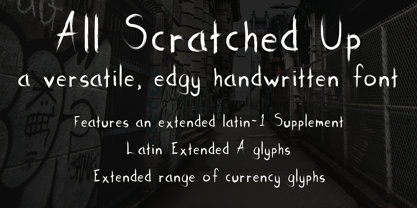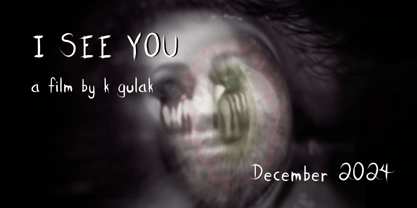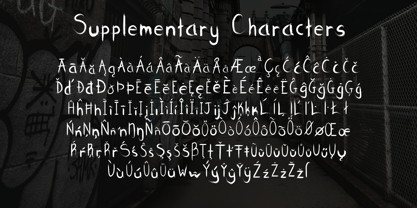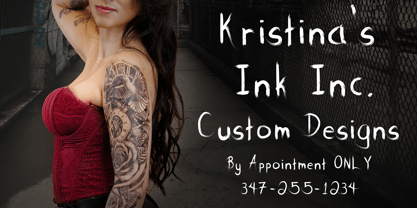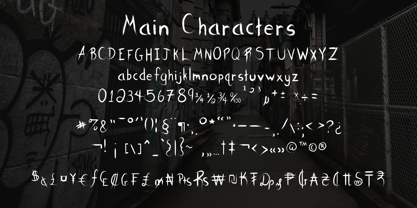
All Scratched Up
by Still Staring at the Sky Design
The All Scratched Up Font Family was designed by Kara Gulak and published by Still Staring at the Sky Design. All Scratched Up contains 1 styles. More about this family
All Scratched Up is an edgy, handwritten font with an extensive glyph set. In addition to basic Latin, All Scratched Up includes Latin Extended A, Latin Supplement 1, and an extended set of currency glyphs. Basic Latin, Latin Extended A and Latin Supplement 1 also include both capital and lowercase glyphs.
This font is suitable for marketing, posters, etc. as well as everyday type.
Designers: Kara Gulak
Foundry: Still Staring at the Sky Design